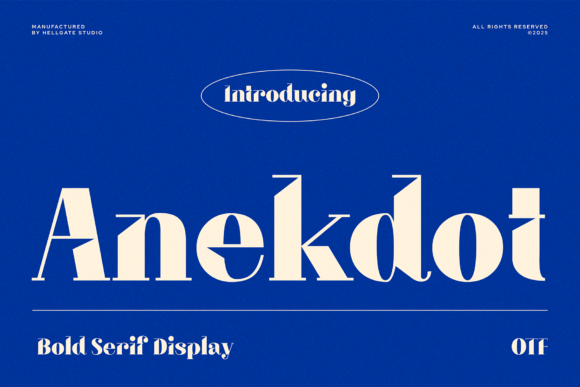
Discover the Timeless Charm of Anekdot Font
Have you ever been in the middle of a design project, pouring your heart and soul into every detail, only to hit a roadblock when it comes to finding the perfect font? I recall a particularly frustrating experience when a client asked for a retro-themed logo, and I was determined to deliver. After scouring the internet for hours, I stumbled upon the Anekdot Bold Serif Typeface, and it was love at first sight! 💫
This powerful display serif font, tailored specifically for retro themes, exudes a bold and assertive persona that commands attention with ease. In this article, we’ll dive into the world of Anekdot Font, exploring its features, uses, and everything in between.
An Honest Review of Anekdot Font
What I Love About Anekdot Font ✨
- ✅ Seamless editing: The Anekdot Bold Serif Typeface offers effortless customization to suit your aesthetic needs, with easy text and color editing.
- ✅ High-quality rendering: The font ensures the best outcomes, making it perfect for both digital and print projects.
- ✅ Retro charm: The Anekdot Font boasts a unique, old-world allure that’s sure to add a touch of nostalgia to your designs.
While Anekdot Font is an excellent choice for retro-themed projects, it may not be the best fit for:
- ⚠️ Body text: Due to its bold and assertive nature, Anekdot Font may not be suitable for lengthy body text. Instead, opt for a clearer font for better readability.
- 🤔 Pairing with other fonts: As a bold font, Anekdot may overpower other fonts in your design. Experiment with different pairings to find the perfect balance.
The Backstory of Anekdot Font
The Anekdot Font was designed with the intention of capturing the essence of retro charm. Inspired by vintage typography, the font’s creator aimed to craft a bold, assertive typeface that would transport designers back in time. While the actual design process remains a mystery, it’s clear that Anekdot Font has become a staple in the world of retro-themed design.
| Is Anekdot Font suitable for body text? | While Anekdot Font is a beautiful typeface, it may not be the best choice for lengthy body text due to its bold nature. Opt for a clearer font for better readability. |